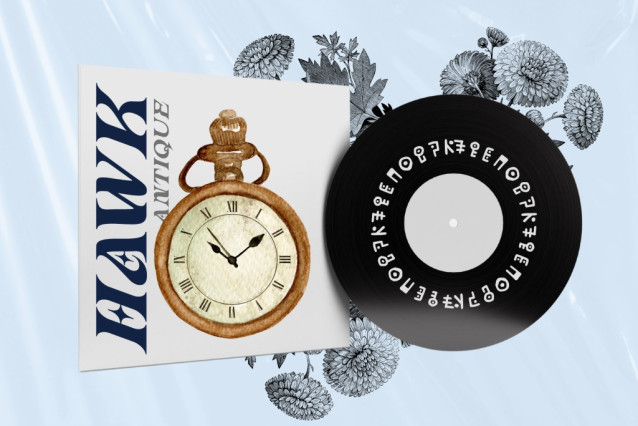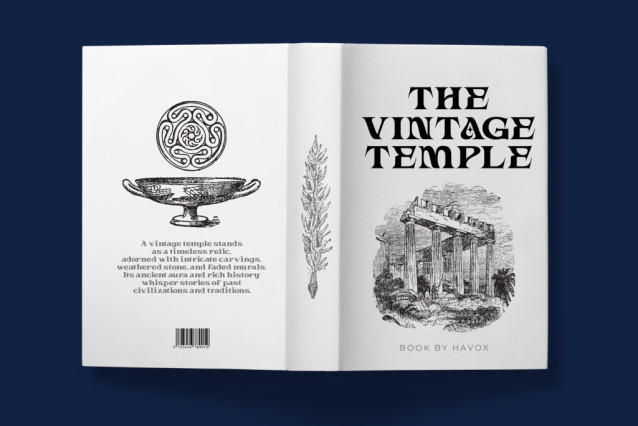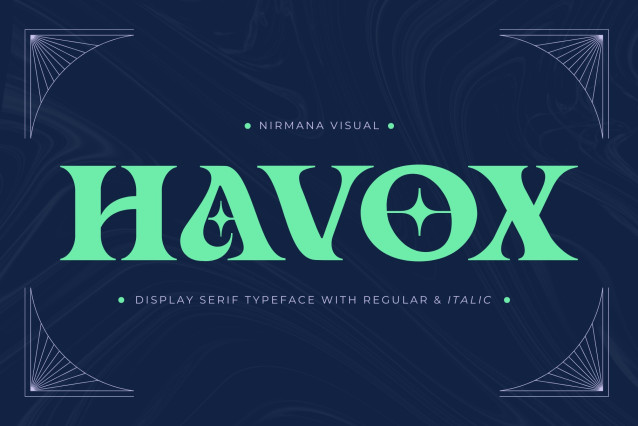
Havox Vintage Font
Havox Vintage Font is a vintage serif font that embodies timeless elegance and classic charm. With its bold curves and refined details, Havox brings a touch of nostalgia, perfect for retro-inspired designs. Ideal for logos, headlines, posters, and branding, this typeface blends traditional serif strength with a stylish vintage twist. Let Havox elevate your project with a sense of heritage and sophistication.